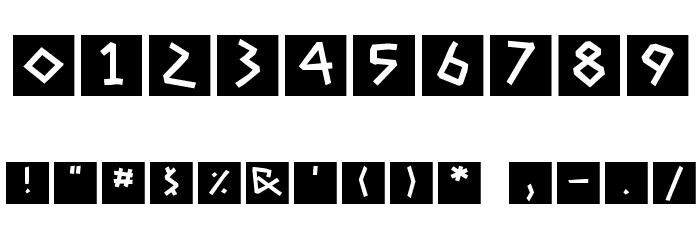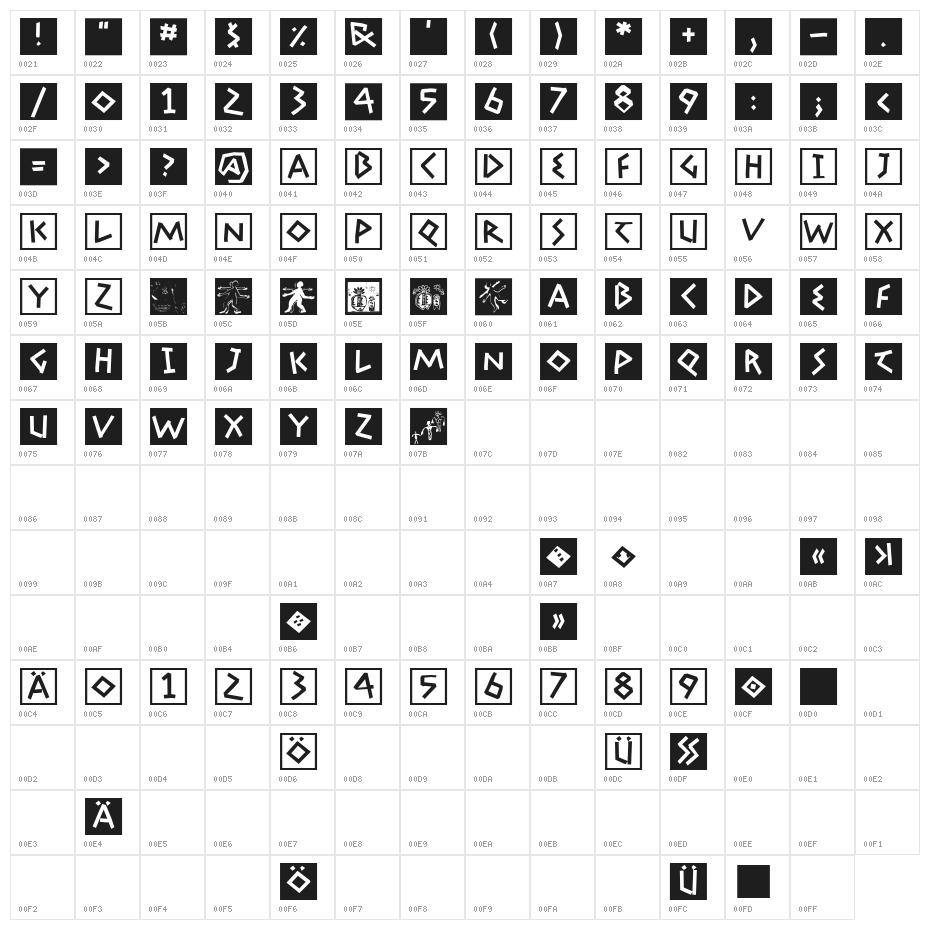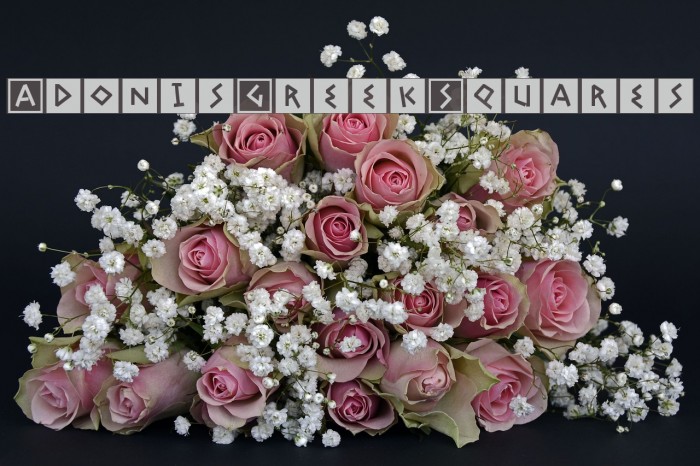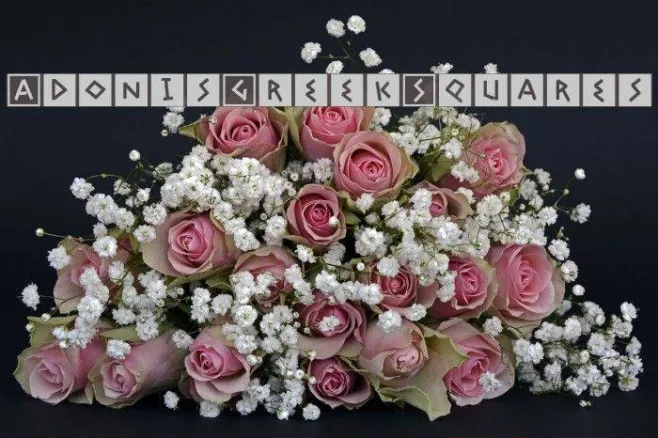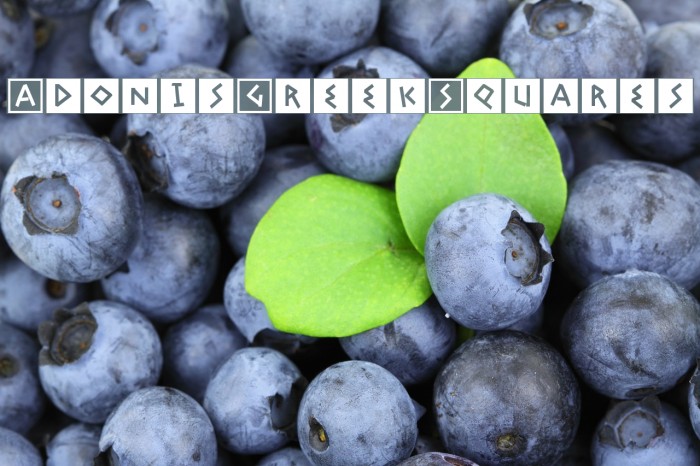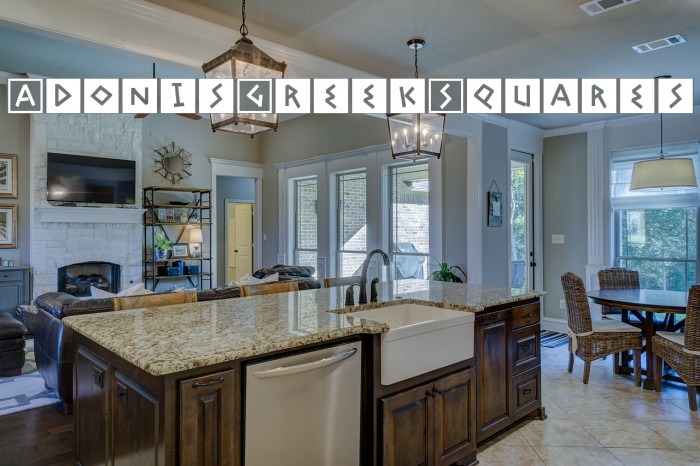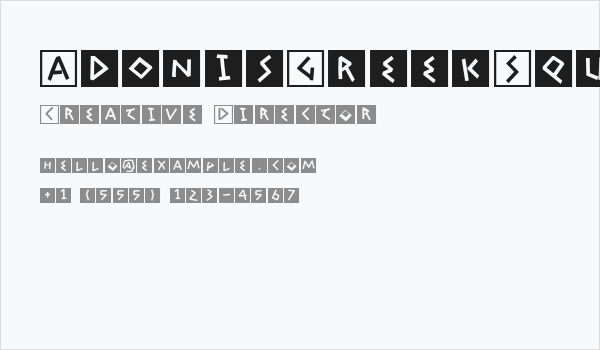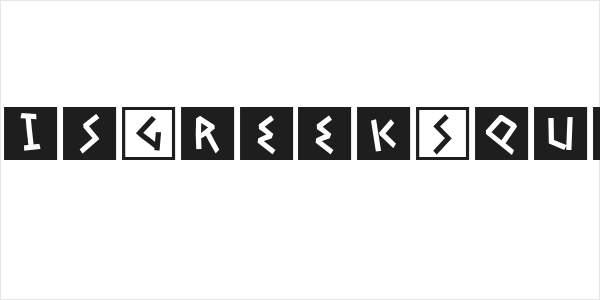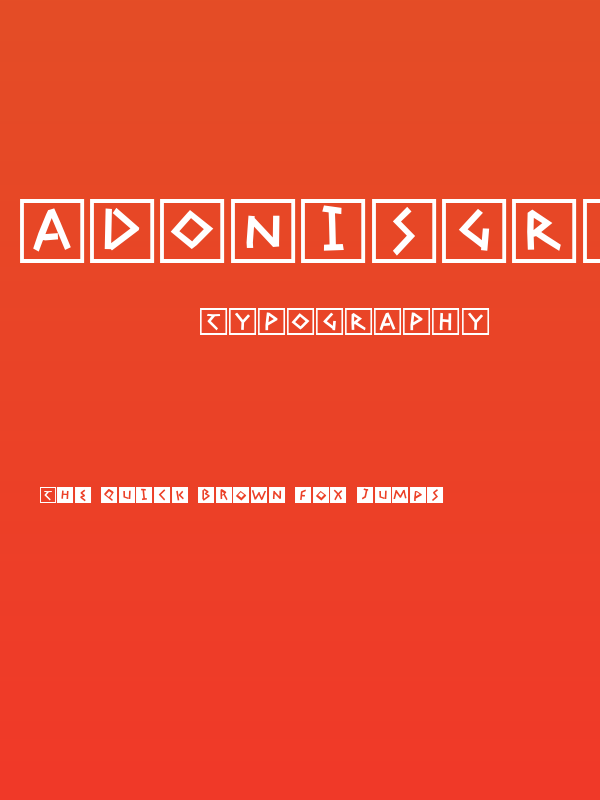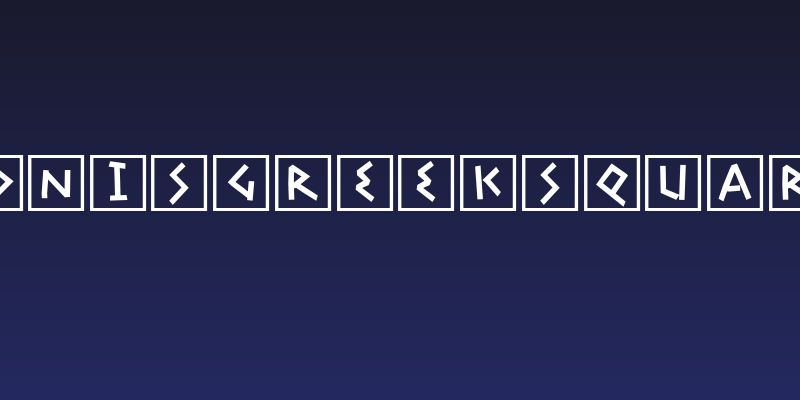
AdonisGreekSquares Font
AdonisGreekSquares Description
This font features a bold, geometric design with each character enclosed in a square. The letters are stylized with sharp angles and a modern, abstract aesthetic, reminiscent of ancient Greek motifs. The uppercase letters are distinct and eye-catching, making them suitable for impactful designs. The numbers and special characters maintain the same geometric style, ensuring consistency across all glyphs. The font's unique appearance makes it ideal for creative projects that require a strong visual identity.
| Use Case | Logos, Posters, Branding |
| Proposed Projects | Ideal for logos, posters, and branding projects that require a bold and distinctive look. |